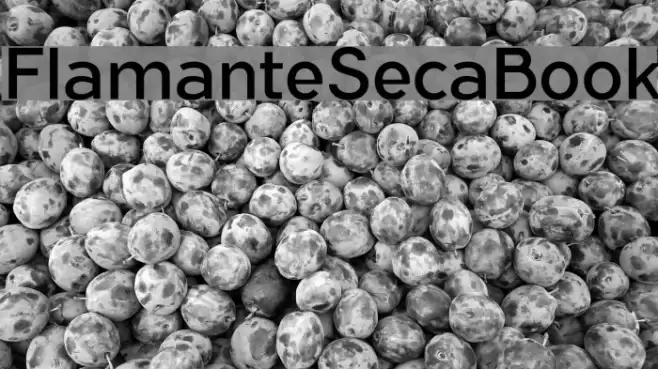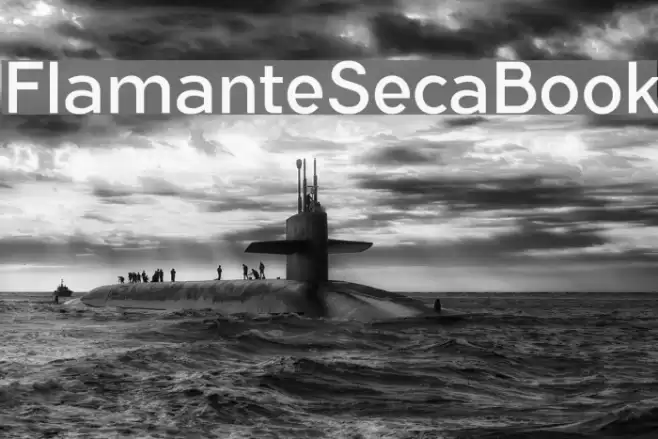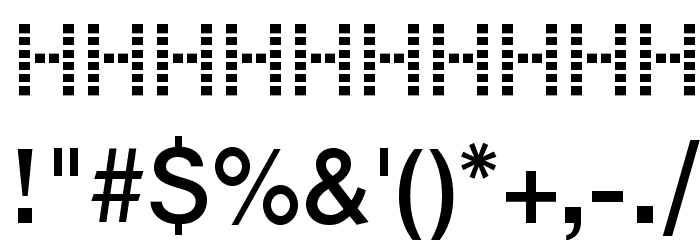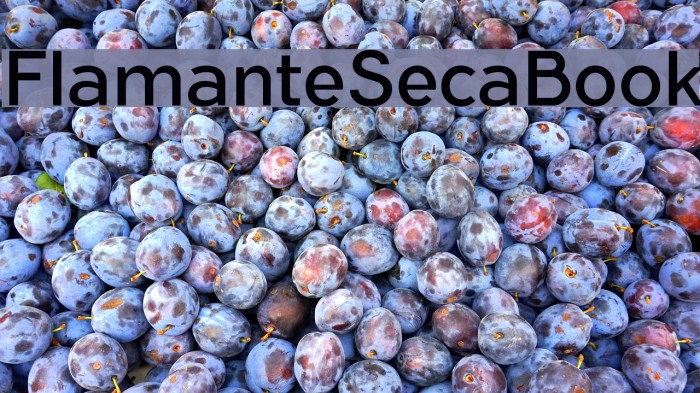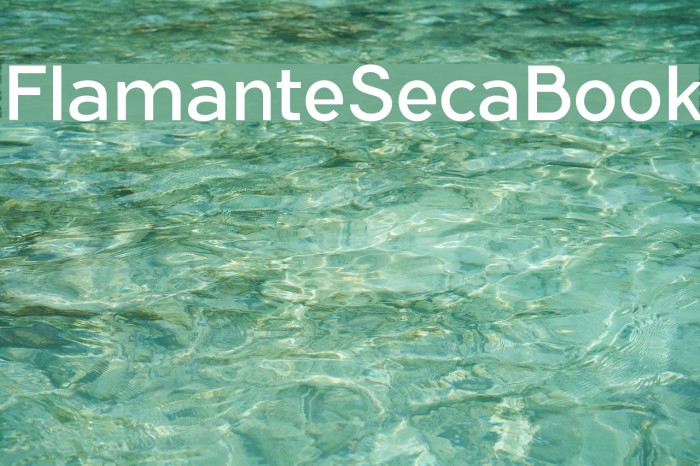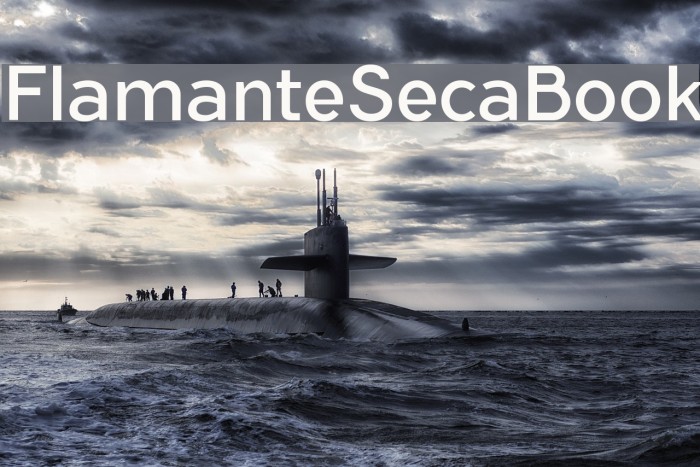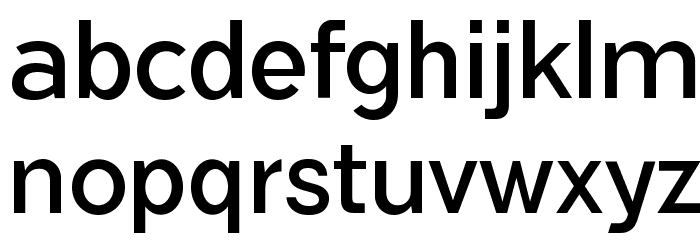
FlamanteSecaBook Font
FlamanteSecaBook Description
This typeface presents a clean and modern aesthetic with a sans-serif design. It features uniform stroke widths, contributing to its sleek and contemporary appearance. The characters are well-proportioned, offering a balanced look that enhances readability. Uppercase and lowercase letters are distinct, with a slight geometric influence visible in the rounded edges and straight lines. The numerals and special characters maintain the same design consistency, making it versatile for various applications. Its simplicity and clarity make it suitable for both digital and print media.
A modern, sans-serif typeface with clean lines and balanced proportions from Uncategorized fonts.
- Proposed Projects: Ideal for branding, web design, corporate materials, and editorial layouts.